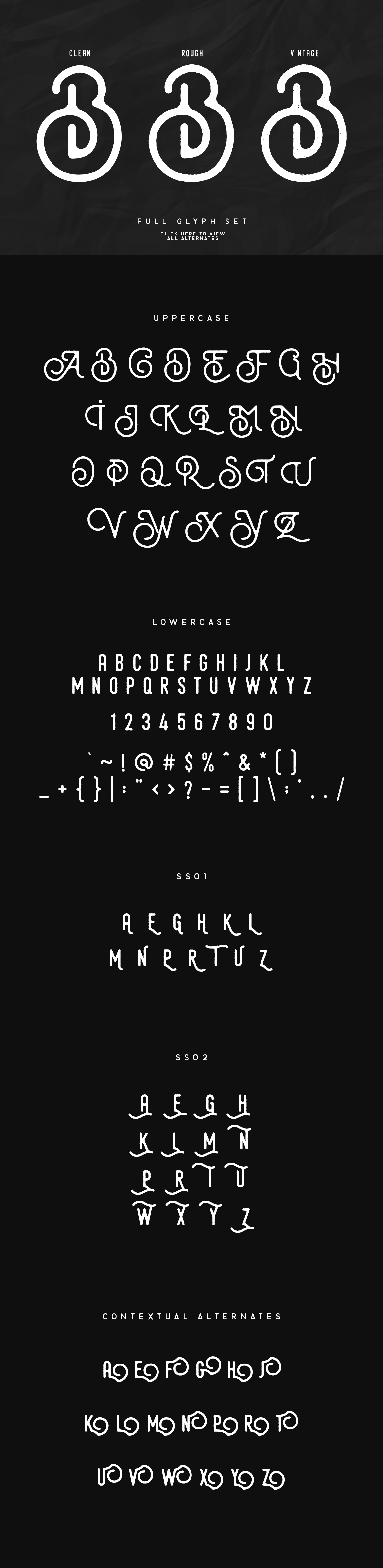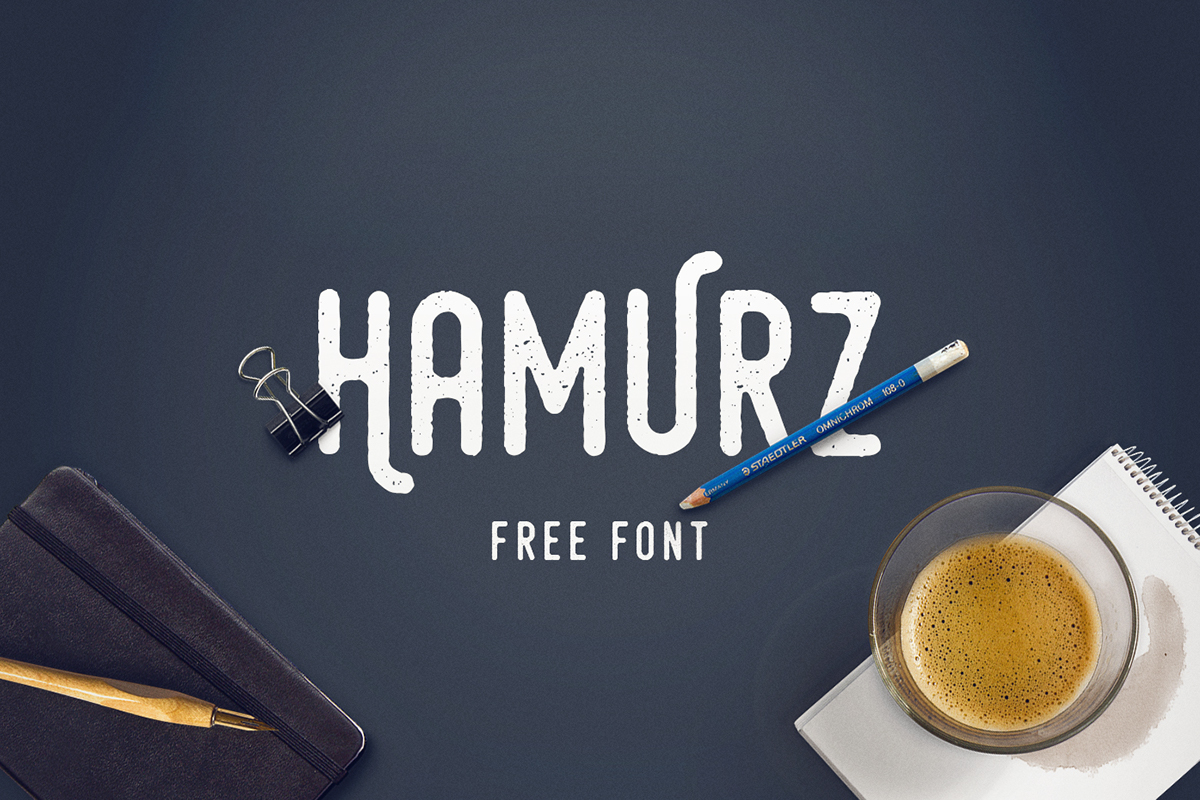
Hamurz by Bagus Budiyanto
Premium version specification :
– Lowercase
– Uppercase
– Numeral & Punctuation
– 3 Styles font : clean, rough & vintage look